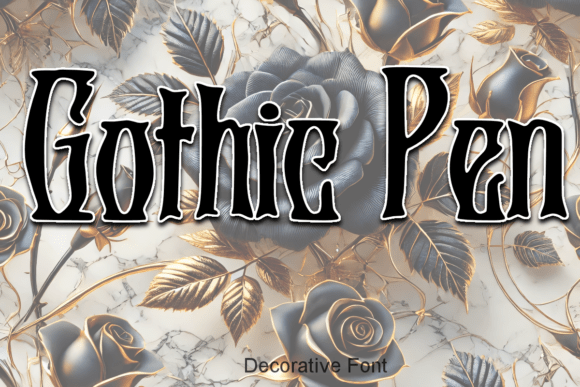
Gothic Pen: A Dramatic Typeface for Elegance and Expression
Gothic Pen is a dramatically ornate typeface that channels the aesthetic of the Gothic era into modern design. With its intricate strokes, elongated forms, and mysterious allure, this font captures the essence of a time defined by grandeur, emotion, and artistry. Whether you're crafting branding materials, designing event invitations, or enhancing literary content, Gothic Pen brings a sense of timeless sophistication to your work.
Understanding Gothic Pen's Place in Design Workflows
Incorporating Gothic Pen into your design process requires an understanding of where it fits best. This typeface is not just a visual choice—it’s a thematic one. It works particularly well in projects that seek to evoke a sense of drama, nostalgia, or historical richness. From editorial layouts to product packaging, Gothic Pen can serve as a powerful storytelling tool when used thoughtfully.
Before beginning any project that involves Gothic Pen, consider the overall message and tone you want to convey. Does the project align with themes like romance, fantasy, or dark academia? If so, Gothic Pen may be an excellent fit. During the design phase, it should be used sparingly to maintain legibility while still achieving the desired effect. After the project is completed, evaluate how well the font contributes to the final outcome—does it enhance the mood or distract from the message?
Preparation: Choosing the Right Context
To prepare for using Gothic Pen, start by defining the context. Will it be part of a brand identity that leans into historical motifs? Or perhaps a special edition publication aiming to highlight gothic literature? Knowing the purpose helps determine whether Gothic Pen will complement or clash with other elements such as color schemes, imagery, and supporting typography.
Integration: Pairing Gothic Pen with Other Elements
Gothic Pen thrives when paired with contrasting fonts and visuals. For example, in a poster design, you might use Gothic Pen for the title to create a dramatic focal point, then switch to a more readable sans-serif font for body text. This ensures that the ornate nature of Gothic Pen doesn't overwhelm the rest of the layout but instead adds a touch of elegance.
When working with images, Gothic Pen complements textures like parchment, ink stains, and shadowy backdrops. These elements enhance the font's mysterious vibe and help it feel at home in the composition. Similarly, color choices play a role—deep blacks, rich reds, and muted golds often bring out the best in Gothic Pen's character.
- Use Gothic Pen for headlines or accents in print and digital media
- Pair with simpler, clean fonts for body text
- Ensure contrast between background and font color for readability
- Consider cultural or historical relevance in your design context
Workflow Examples: Where Gothic Pen Shines
Branding for a Historical Novel: When launching a book centered around medieval Europe, Gothic Pen could be used in the cover design and promotional materials to reflect the setting. The font adds an air of authenticity and intrigue, drawing readers into the story before they even open the first page.
Event Invitations for a Themed Party: Gothic Pen is perfect for creating invitations for events like haunted house parties, steampunk gatherings, or costume balls. Its ornate style sets the tone and builds anticipation among guests.
Editorial Design in Niche Magazines: For publications covering topics such as architecture, history, or alternative fashion, Gothic Pen can elevate the visual appeal of headers and pull quotes without compromising clarity.
Usability and Practical Application
While Gothic Pen is visually striking, its usability depends on how it’s applied. Because of its decorative nature, it's best suited for short texts rather than large blocks of information. Use it for titles, logos, headings, and call-to-action buttons where impact matters more than readability.
- Select Gothic Pen for key typographic elements
Gothic Pen is more than just a font—it's a design element that carries the weight of an entire artistic movement. By understanding its strengths and limitations, you can integrate it effectively into your workflows and leverage its unique qualities to enhance your creative output. Whether you're an entrepreneur crafting a brand identity or a blogger adding flair to your site, Gothic Pen offers a compelling way to connect with audiences who appreciate depth, beauty, and a touch of the dramatic.